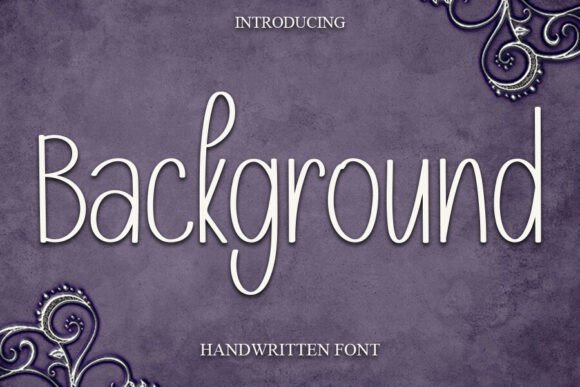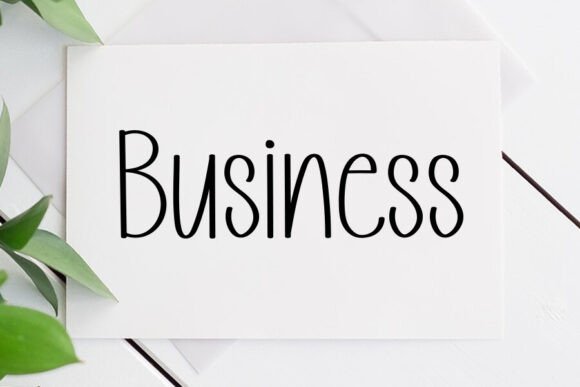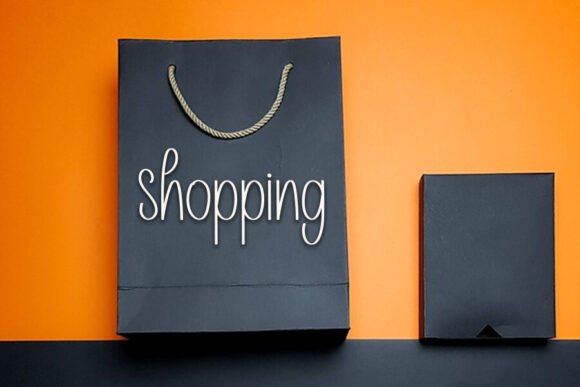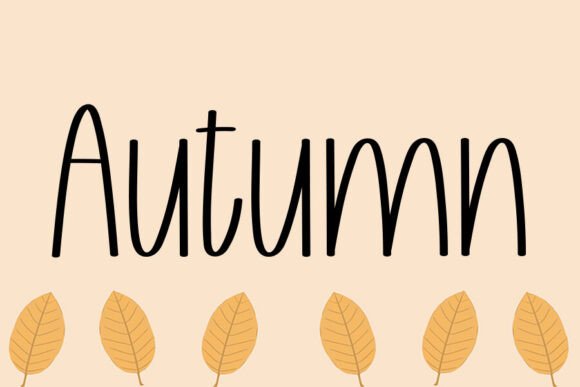
About the Background Font
Make a bold statement with Background Font, a powerful and memorable font. Background is a sweet and cursive handwritten font. This gentle font will look gorgeous on a variety of design ideas. It will add a joyful and romantic touch to each of your projects! Perfectly fit for branding, logo, wedding things, greeting cards, fashion, lookbook, marketing promotion, and any time you want your design to look fancy and elegant but still casual.
Background Font Usage Examples
Background Font Example